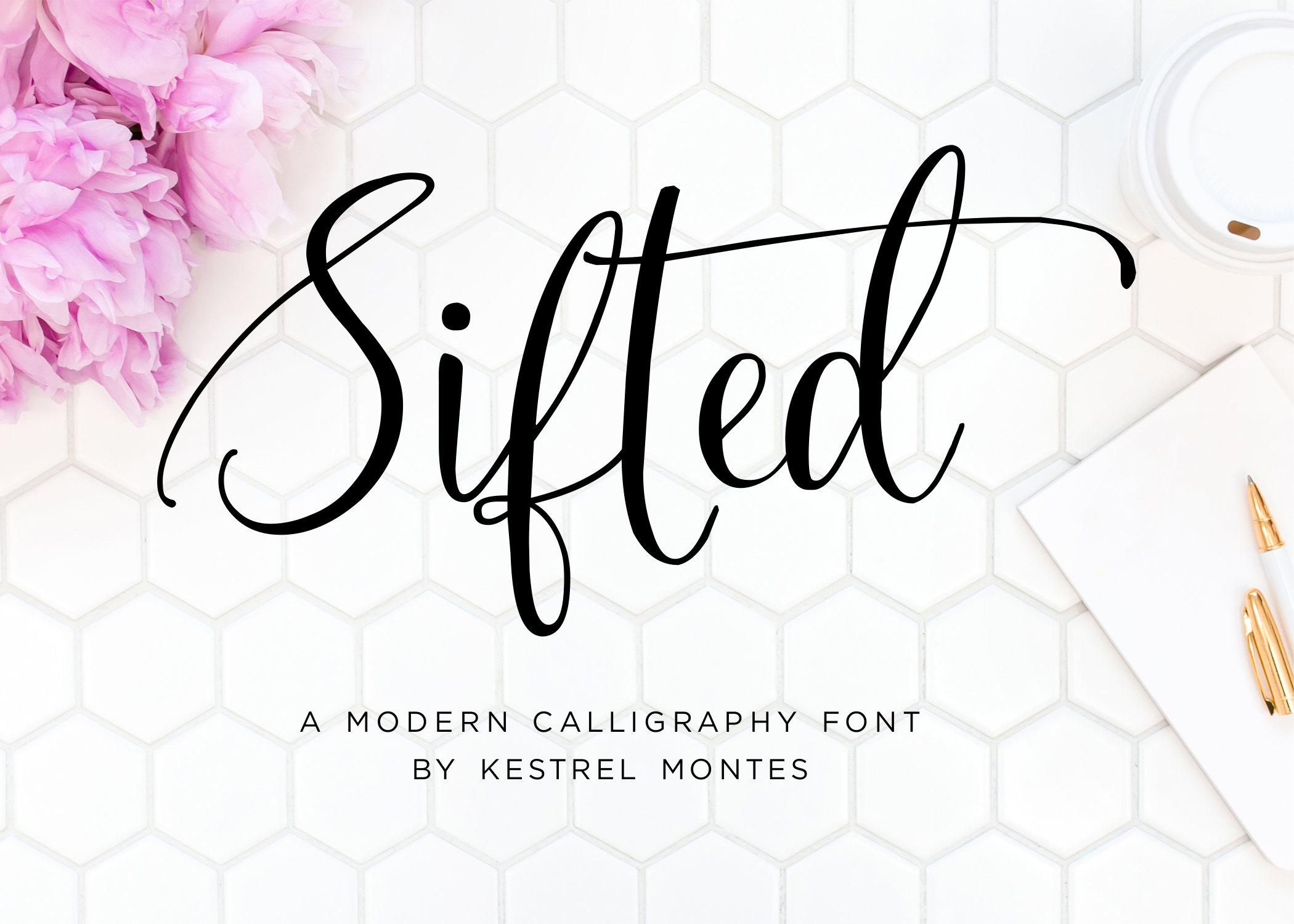
Sifted Wedding Font
Sifted is a modern calligraphy script font handlettered by Kestrel Montes. The bouncing playfulness mixed with romantic elegance make this font perfect for invitations, logos and other special projects.
• 260 characters including lots of multilingual characters and punctuation
• Pretty initial and terminal swashes for extra adornment (programmed as alternate ligature substitutions)
• Includes expanded multilingual characters and punctuation (more than photo samples show)